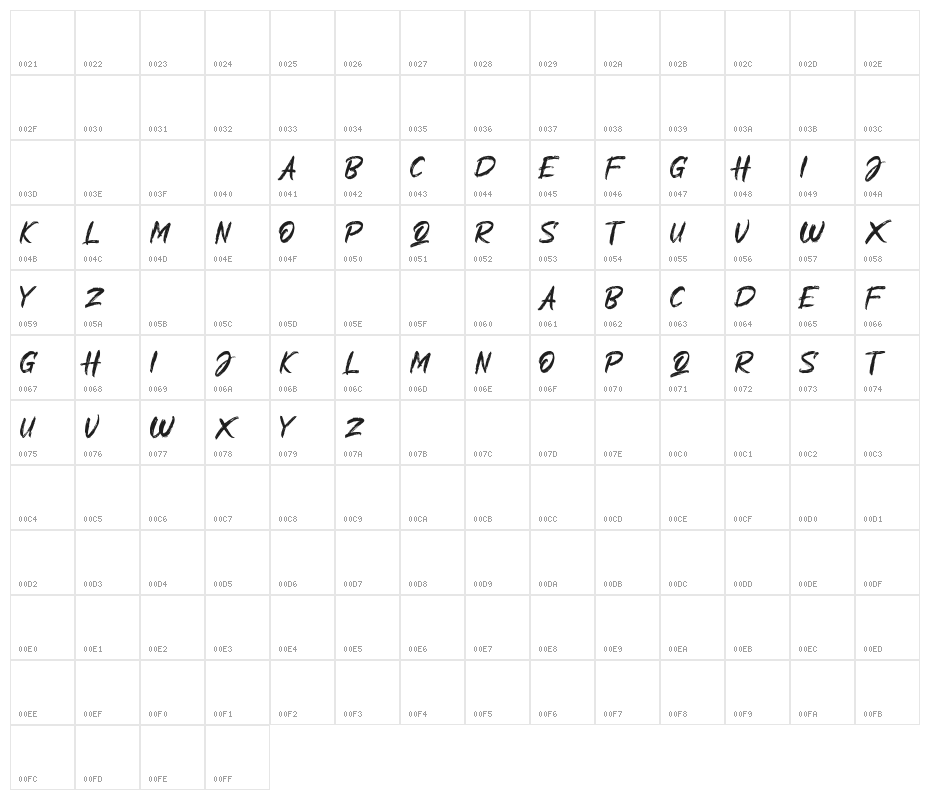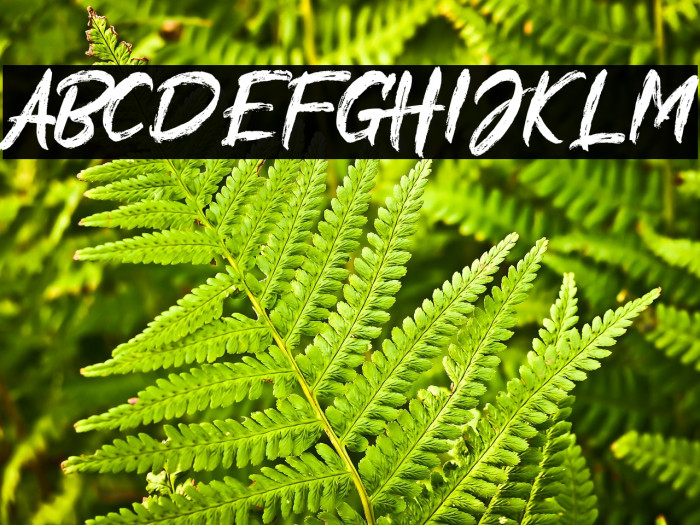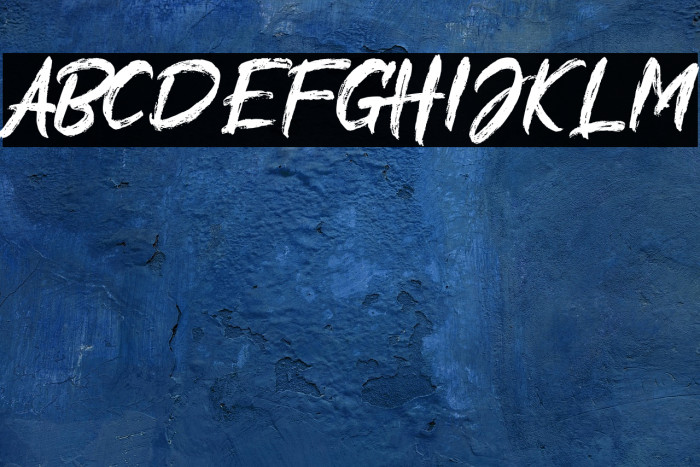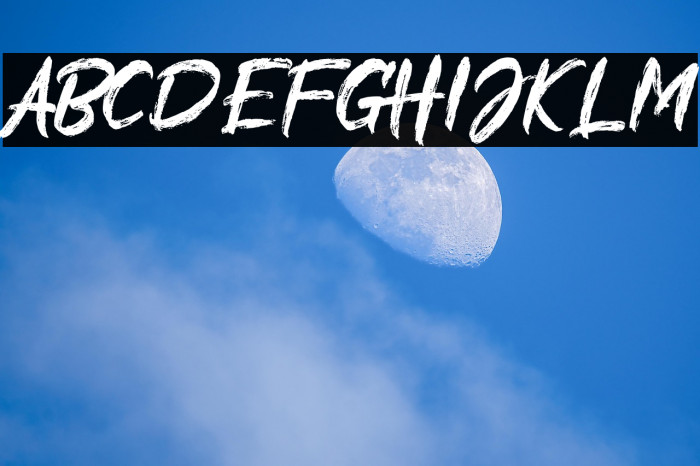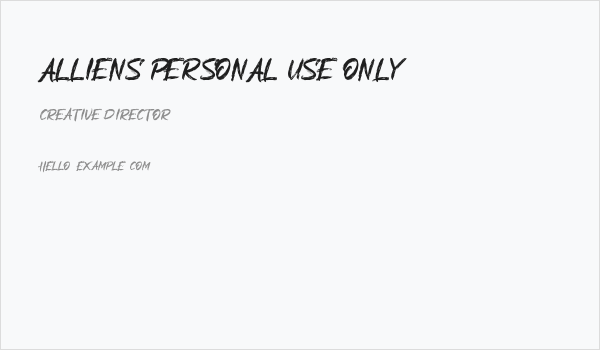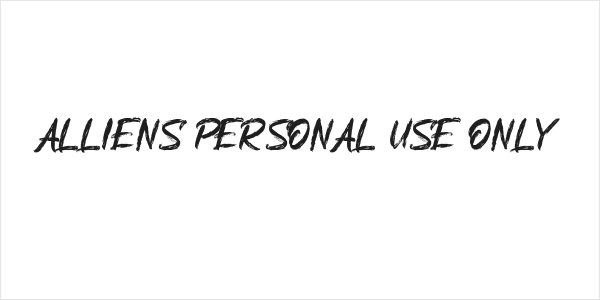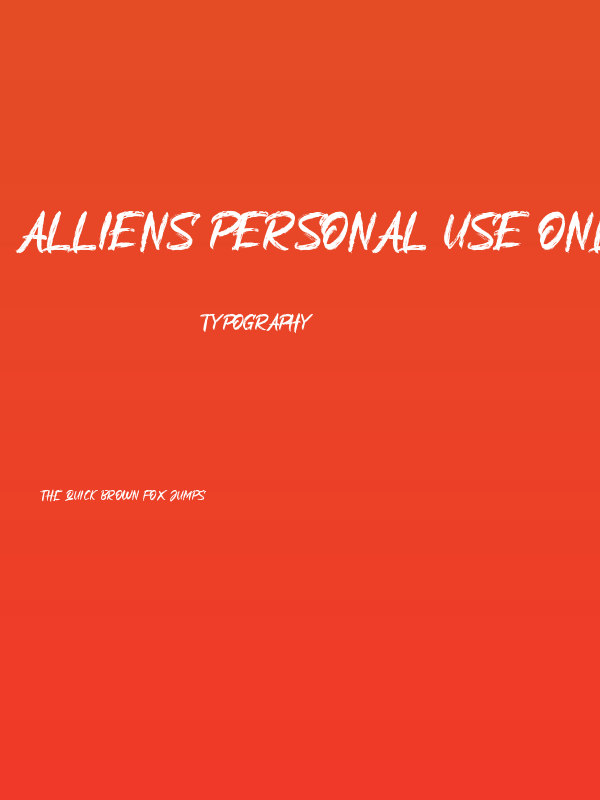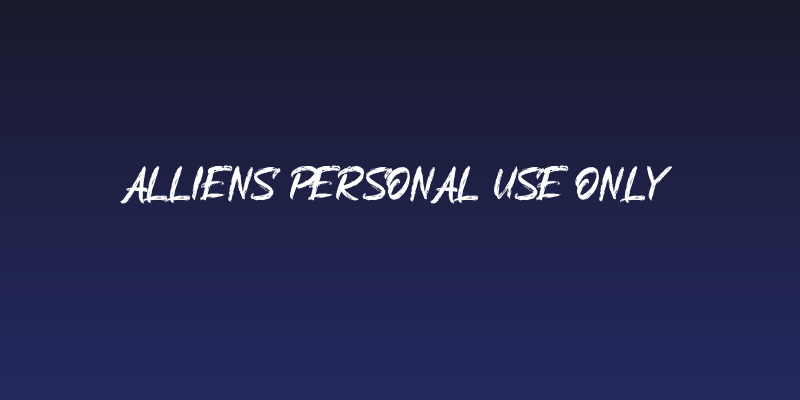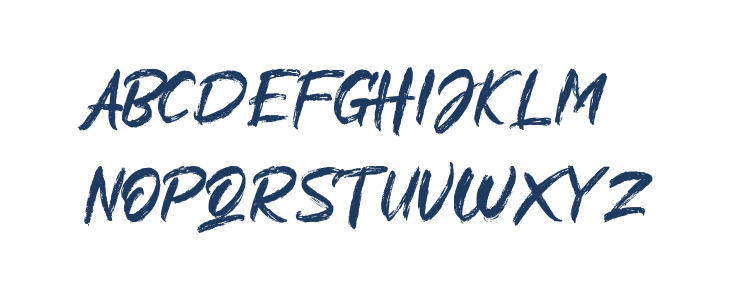
Alliens Personal Use Only Font
Alliens Personal Use Only Description
This font features a bold, brush-like appearance with a dynamic and energetic style. The strokes are uneven, giving it a hand-painted look that adds a sense of movement and vibrancy. Each letter is distinct, with varying thickness and rough edges that contribute to its artistic flair. The uppercase and lowercase letters maintain a consistent style, while the numbers and special characters blend seamlessly into the overall design. This font is perfect for projects that require a bold statement or a creative touch.